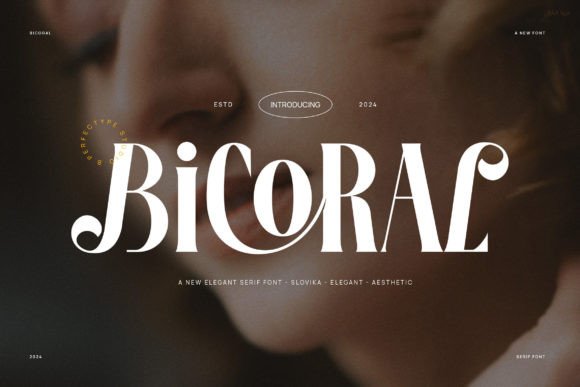
Bicoral Font: Elevate Your Design with Modern Elegance
In the world of typography, a font can make or break a design project. A well-chosen font can elevate the aesthetic, convey the message, and leave a lasting impression on the audience. Introducing Bicoral, a modern, stylish, and elegant serif font that blends sophistication with contemporary flair. With its clean lines, balanced proportions, and subtle details, Bicoral is the perfect choice for designers seeking to add a touch of refinement to their projects.
The Anatomy of Bicoral Font
Bicoral is a carefully crafted serif font that boasts a unique combination of classic and modern elements. Its clean lines and balanced proportions create a sense of harmony, making it suitable for a wide range of design applications. The font features:
- Clean Lines: Bicoral’s lines are sleek and uncomplicated, providing a crisp and modern appearance.
- Balanced Proportions: The font’s proportions are meticulously balanced, ensuring that each letterform is in perfect harmony with the others.
- Subtle Details: Bicoral’s subtle details, such as the slight variations in line width and the elegant serifs, add a touch of sophistication and refinement.
Design Applications for Bicoral Font
Bicoral’s versatility makes it an excellent choice for various design projects, including:
- Editorial Layouts: Bicoral’s elegant and refined appearance makes it perfect for use in magazines, newspapers, and books.
- Branding: The font’s modern and sophisticated look makes it an excellent choice for corporate branding, logos, and advertising.
- Luxury Packaging: Bicoral’s luxurious feel makes it ideal for high-end packaging designs, such as jewelry, cosmetics, and premium products.
- Invitations: The font’s elegant and refined appearance makes it perfect for wedding invitations, event invitations, and formal announcements.
The Benefits of Using Bicoral Font
By choosing Bicoral for your design project, you can benefit from:
- Enhanced Readability: Bicoral’s clean lines and balanced proportions ensure that your text is easy to read and understand.
- Increased Sophistication: The font’s elegant and refined appearance adds a touch of sophistication to your design, making it perfect for high-end projects.
- Flexibility: Bicoral’s versatility makes it suitable for a wide range of design applications, from editorial layouts to luxury packaging.
- Unique Identity: Bicoral’s distinctive style helps to create a unique identity for your brand or project, setting it apart from others.
Tips for Using Bicoral Font Effectively
To get the most out of Bicoral, follow these tips:
- Use it as a Headline Font: Bicoral’s elegant and refined appearance makes it perfect for use as a headline font, adding a touch of sophistication to your design.
- Pair it with Other Fonts: Experiment with pairing Bicoral with other fonts to create a unique and visually appealing combination.
- Adjust the Line Height: Adjusting the line height can help to improve readability and create a more balanced design.
- Use it in Moderation: Use Bicoral in moderation, as too much of a good thing can be overwhelming.
Bicoral is a modern, stylish, and elegant serif font that can elevate your design project to new heights. With its clean lines, balanced proportions, and subtle details, this typeface adds a touch of refinement and sophistication to any design. Whether you’re working on an editorial layout, branding project, luxury packaging, or invitation, Bicoral is the perfect choice. So why settle for an ordinary font when you can have a truly exceptional one? Choose Bicoral and experience the power of elegant typography.